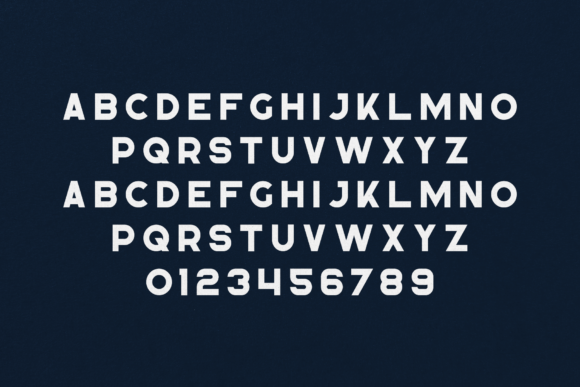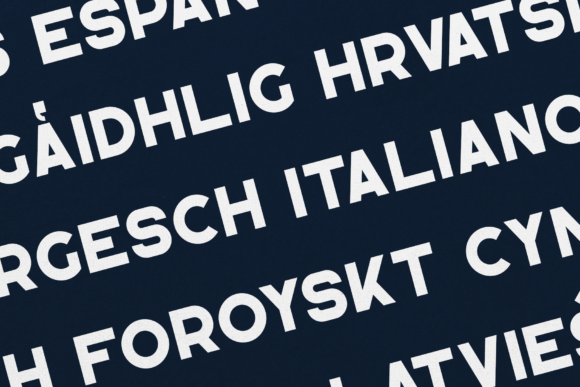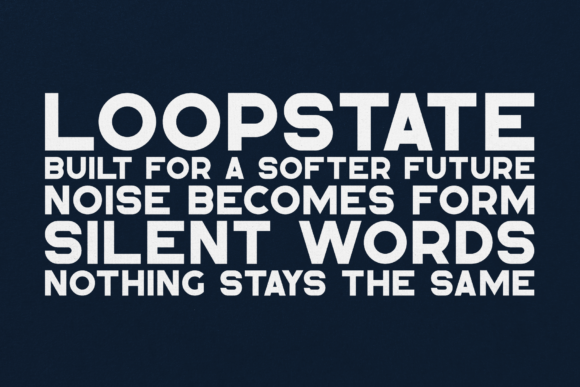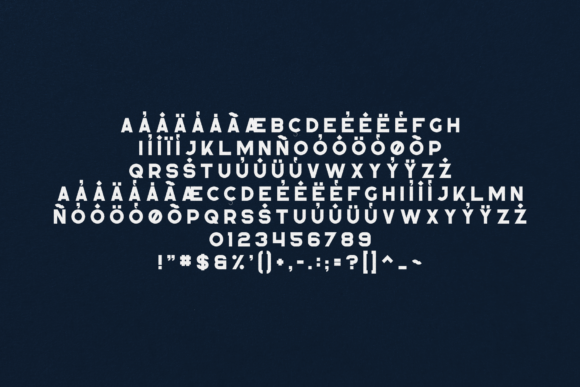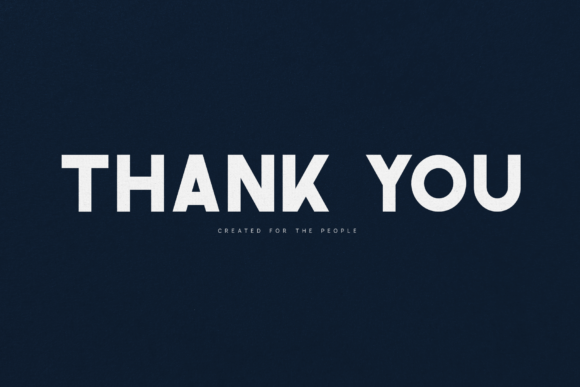
Introduction to Eqinox Font
Expand your design arsenal with the bold, celestial energy of Equinox, a powerhouse display font designed for projects that demand to be noticed.
Whether you are creating high-impact posters, futuristic branding, or cinematic headlines, Equinox provides the solid foundation needed for world-class design Ideally suited for powerful logo marks, aggressive marketing campaigns, sports branding, and architectural signage.
Key Features of Eqinox Font